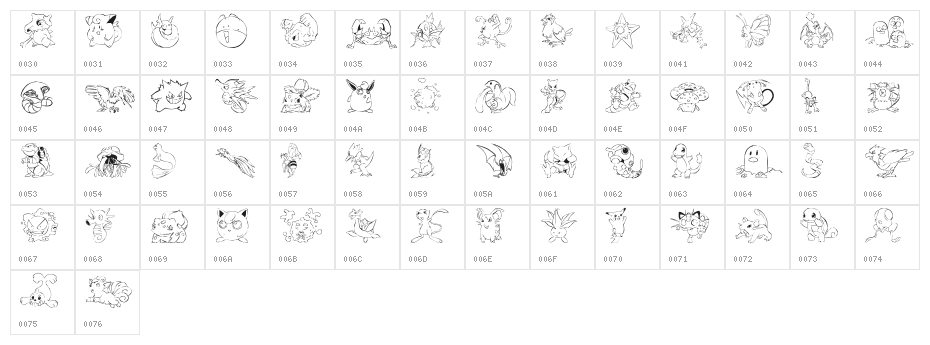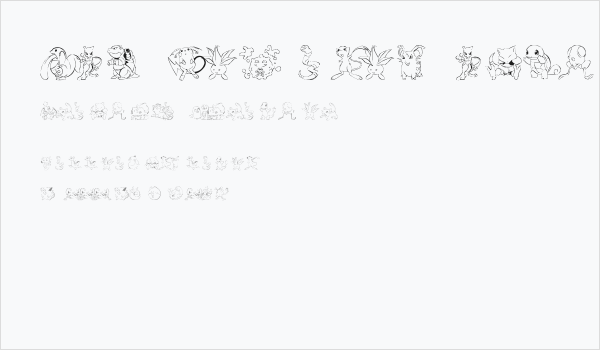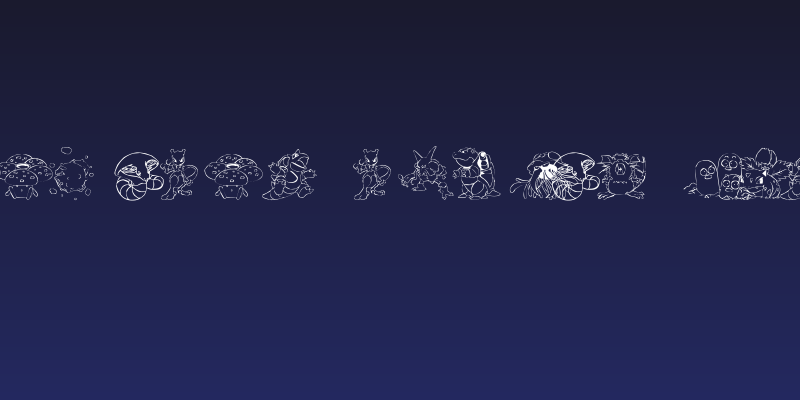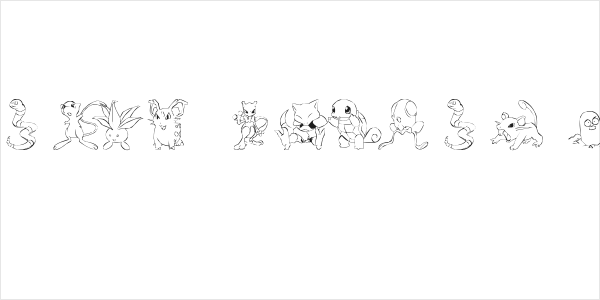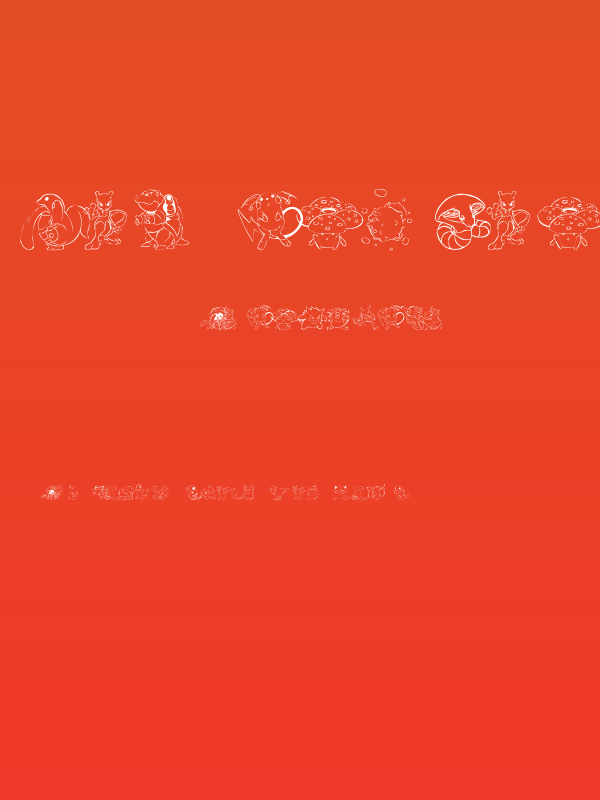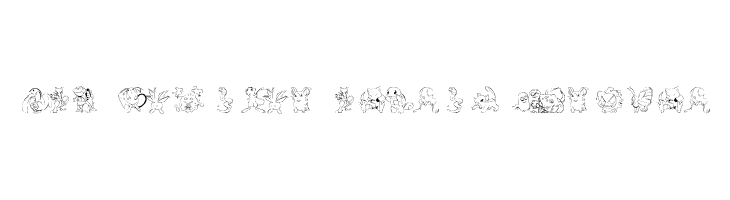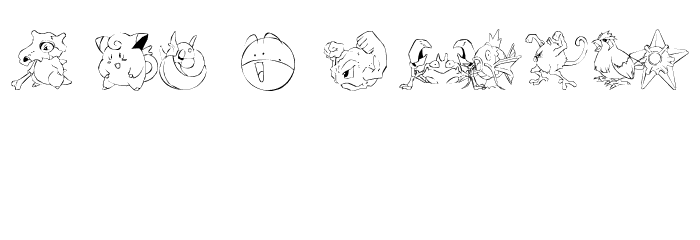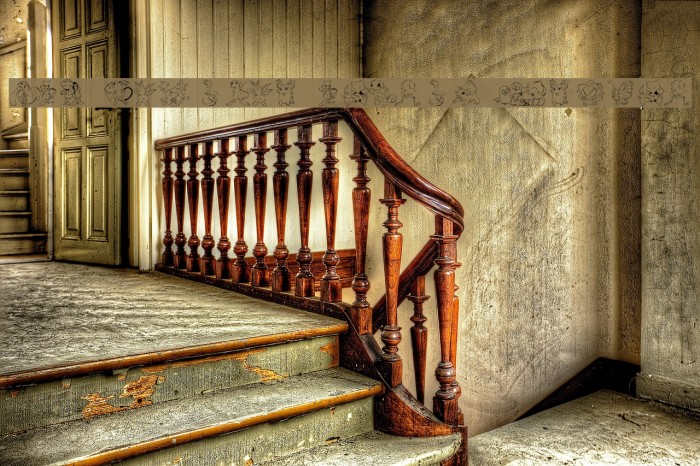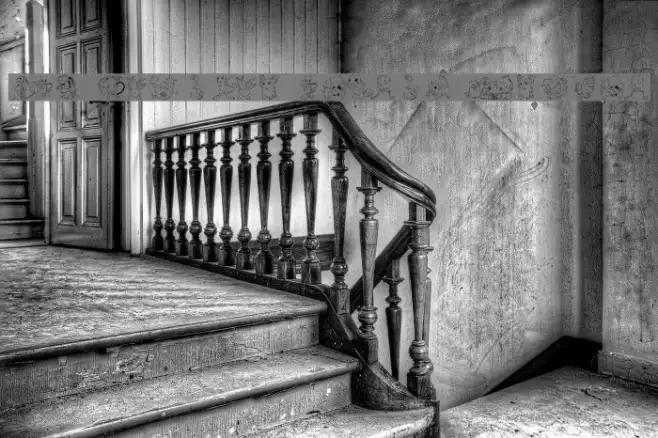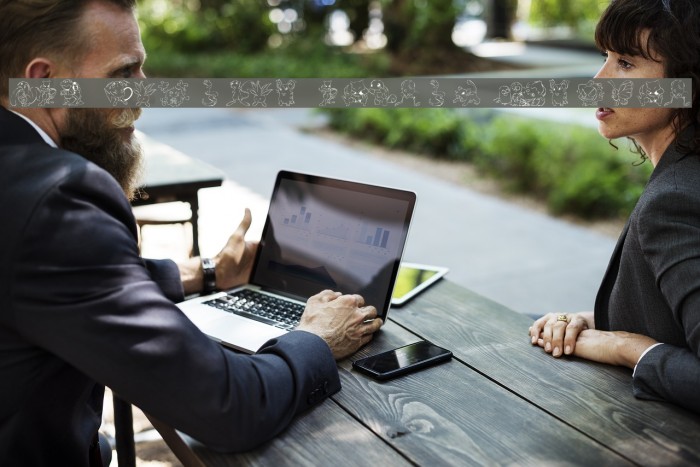
LMS Poke'mon Master DingBat Font
LMS Poke'mon Master DingBat Description
This is a decorative font featuring a series of whimsical and playful illustrations inspired by popular fictional creatures. Each character is represented by a unique, detailed drawing, capturing the essence of these beloved figures in a charming and engaging style. The illustrations are line-based, offering a clean and crisp appearance that is both visually appealing and easily recognizable. The font is designed to bring a sense of fun and nostalgia, making it perfect for projects that aim to evoke a sense of wonder and imagination. The characters are evenly spaced, ensuring clarity and readability, while the overall design maintains a consistent theme throughout.
| Overall Style | Playful and whimsical |
| Use Case | Logos, Decorative elements, Themed designs |
| Proposed Projects | Ideal for children's books, themed party invitations, playful branding, and merchandise design. |